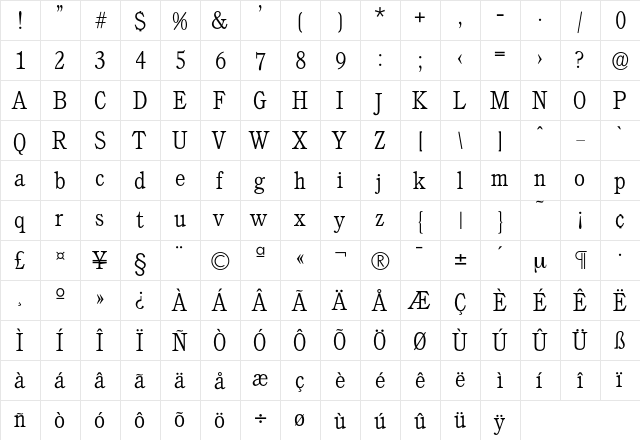
Calgary-Xlight Regular
Design Context for Calgary-Xlight Typeface
Calgary-Xlight offers clean, dependable letterforms without strong stylistic allegiance, making it a practical choice for designers who need flexibility. Its slender proportions lend an understated elegance to any composition.